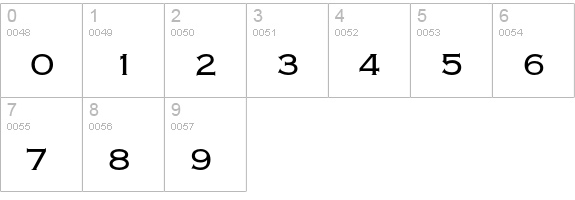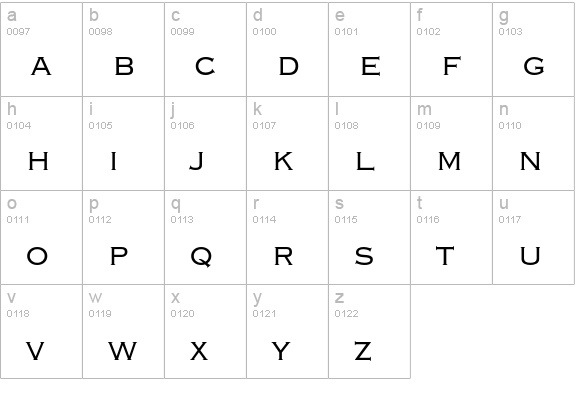
Copperplate Gothic Thirty-Two BC Font Details
Copperplate Gothic Thirty-Two BC is a beautifully crafted font that exudes elegance and sophistication. Its bold and timeless design makes it perfect for a wide range of applications, from formal invitations to professional documents. The classic serifs and clean lines of this font give it a polished and refined look that is sure to make a statement. What sets Copperplate Gothic Thirty-Two BC apart is not only its stunning appearance, but also the fact that it is available for free download at FontsMarket.com. This means that you can easily access this high-quality font without any cost, making it a valuable addition to your font collection. Whether you are looking to add a touch of class to your projects or simply appreciate the beauty of well-crafted typography, Copperplate Gothic Thirty-Two BC is a versatile font that will not disappoint. Download it for free today and elevate your designs with this timeless typeface.